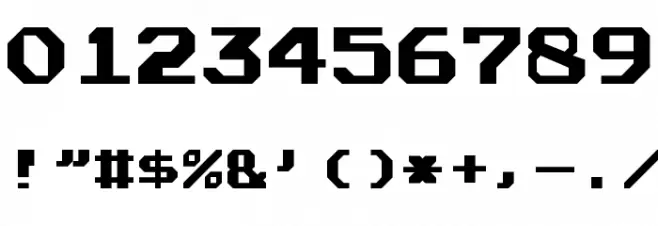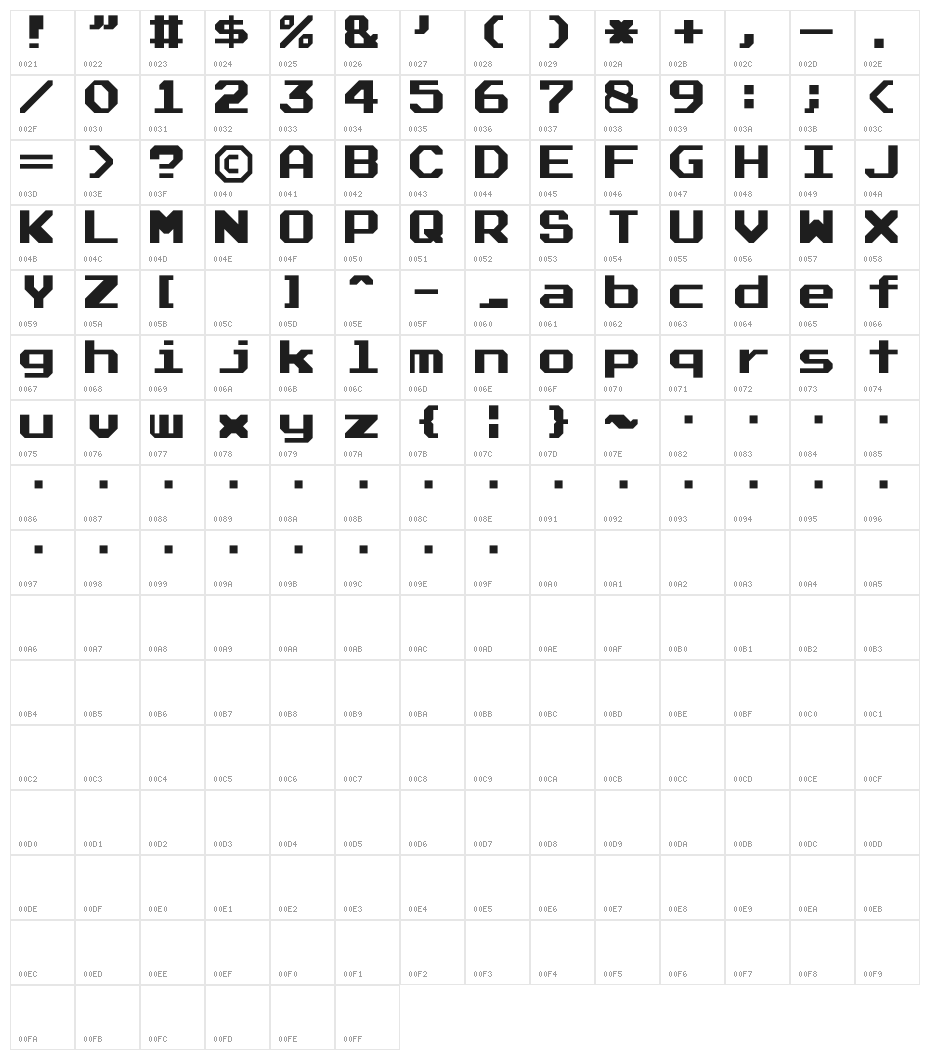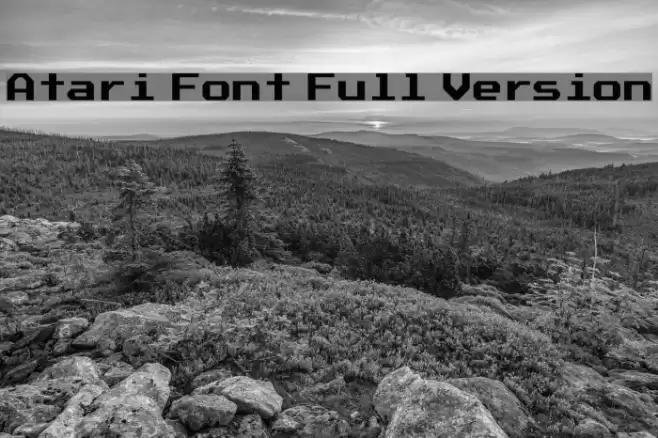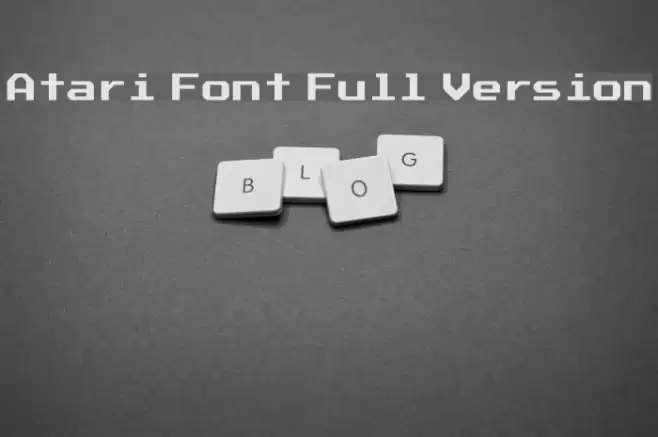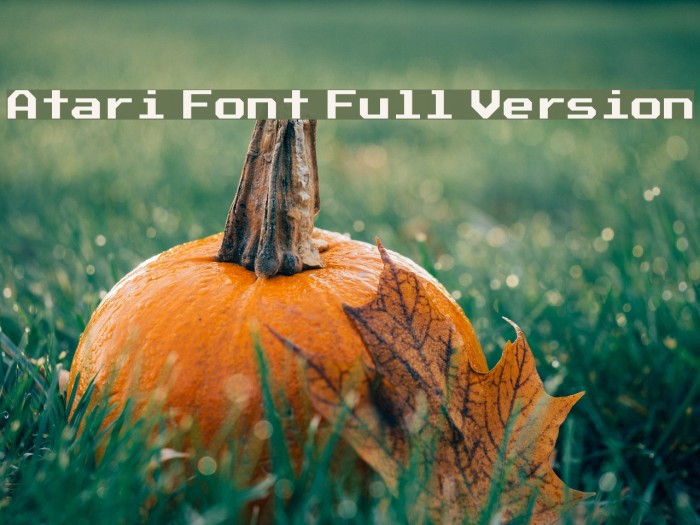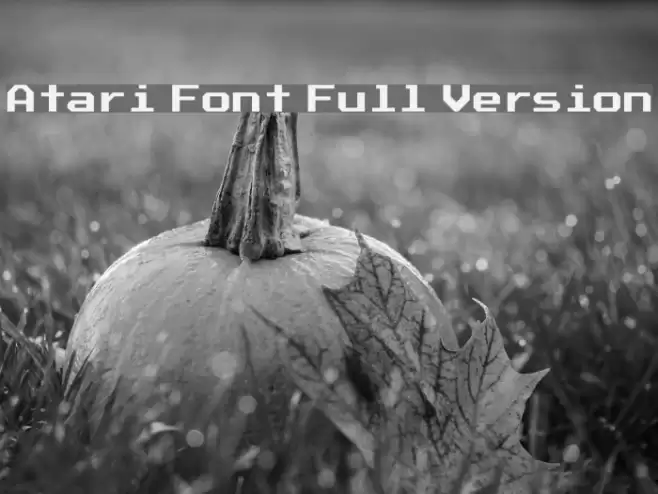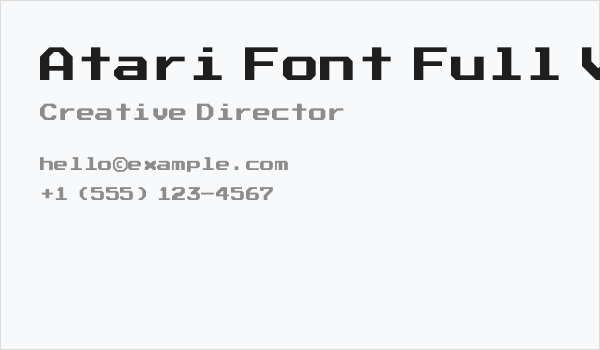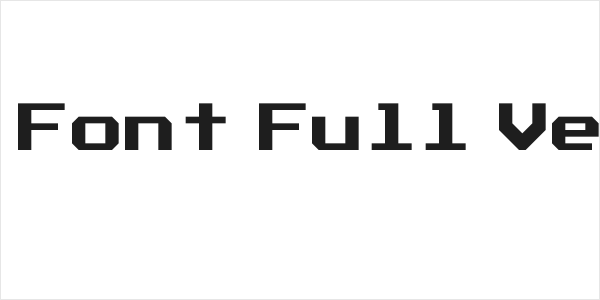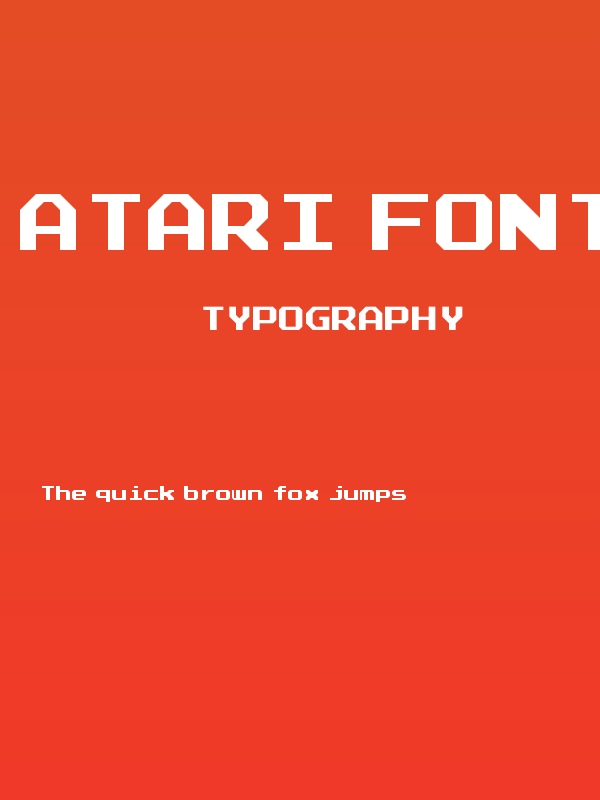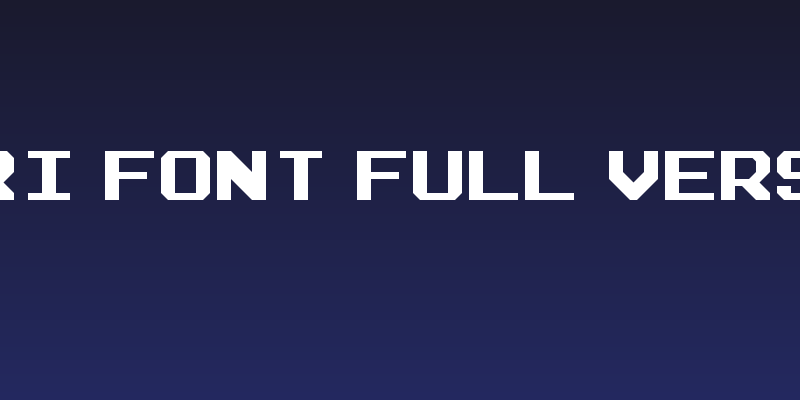
Atari Font Full Version Font
Atari Font Full Version Description
This font features a bold, geometric design with a distinctly retro, arcade-inspired aesthetic. The characters are blocky and angular, reminiscent of classic video game typography from the 1980s. Each letter and number is constructed with sharp edges and a uniform stroke width, creating a cohesive and striking appearance. The uppercase and lowercase letters maintain a consistent style, with slight variations in height and width to distinguish them. The numerals are equally bold and clear, ensuring readability. Special characters are designed to match the overall theme, making this font ideal for projects that aim to evoke nostalgia or a vintage gaming vibe.
| Proposed Projects | Ideal for retro-themed designs, video game graphics, posters, and branding that seeks to capture a vintage gaming aesthetic. |